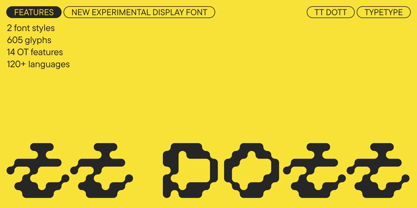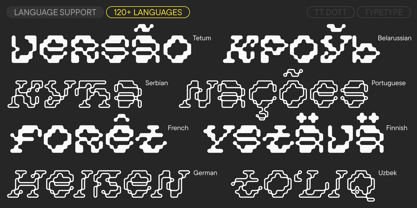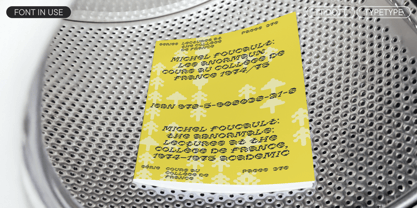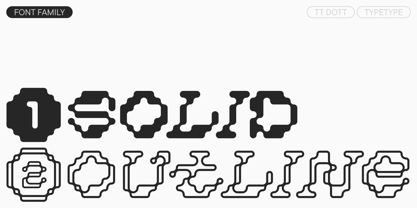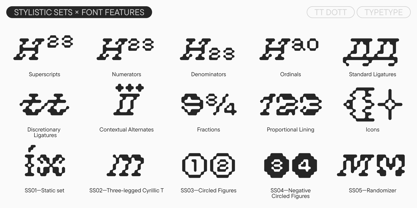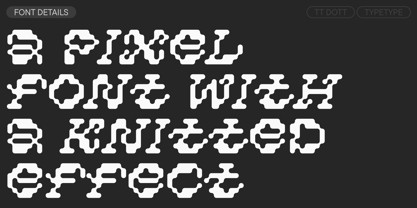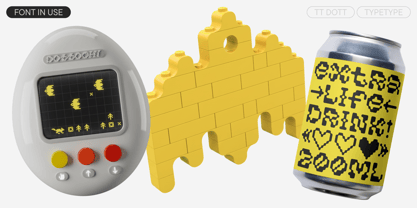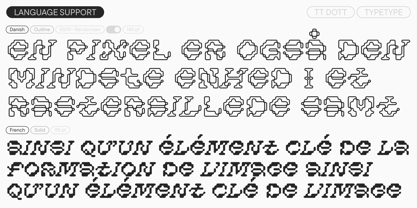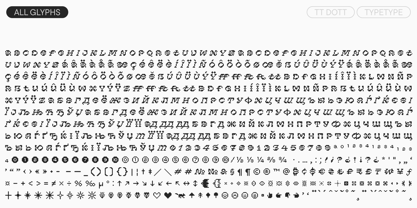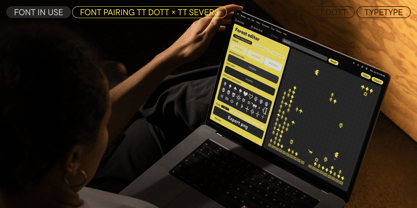
TT Dott
by TypeType
The TT Dott Font Family was designed by Ivan Gladkikh, Antonina Zhulkova, TypeType Team and published by TypeType. TT Dott contains 2 styles and family package options. More about this family
Meet the new TT Dott—an unusual font that redefines pixel aesthetics!
TT Dott is a display pixel grotesque. It is an experimental project created within our Creative Lab. The idea was to use a circle instead of a square as the base for the pixel, and to experiment with character shapes. We wanted to step away from the usual association with a pixel font—static and mechanistic—and create something completely different: fluid, alive, and rhythmic. Because of this, we made some glyphs slanted and others upright, adding dynamism and a sense of randomness to the font.
TT Dott turned out fluid and warm, evoking associations with embroidery, knitting, and techno parties all at once. The typeface includes two font styles: Solid and Outline, which work perfectly on their own and can beautifully complement each other. It also features two stylistic sets: the main one—with slants in certain characters that give it dynamism and quirkiness—and a Static one, which is calmer, with upright characters. An extensive set of thematic icons expands the design possibilities even further.
TT Dott is a font for accents that works best in large sizes. It is suitable for exhibition and festival design, branding, and packaging design. With its help, you can add vibrancy and originality to a project, and in some cases, it will harmoniously fit into an ethnic theme.
TT Dott includes:
- 2 font styles: Solid and Outline
- 605 glyphs per style
- 14 OpenType features
- Support for over 120 languages
Designers: Ivan Gladkikh, Antonina Zhulkova, TypeType Team
Foundry: TypeType